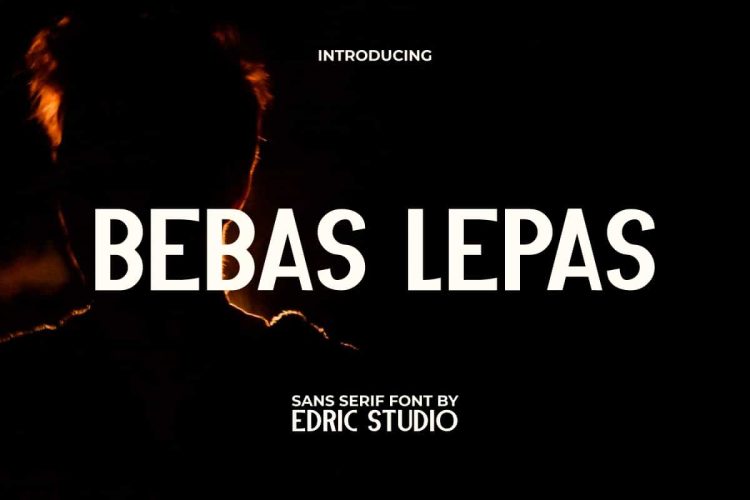
Bebas Lepas Font is a modern sans serif font with a versatile style. The style of this font may be shared by many fonts in general, but it will never get old and is still a favorite of many people. It will be suitable for any business, such as fashion, cafe, men’s product, entertainment, event organizer, sport, accessories, photography, food and beverage, printing, publishing, writer, and many more!
Bebas Lepas Font comes with full set of Uppercase and Lowercase Basic Characters, Number, a large range of Punctuation, and Symbol. It has cool characters set, perfectly managed with well spaced and kerning. Bebas Lepas Font will be able to complement for any design (with extended license) including: custom design, stationery, signage, label, poster, brand image, merchandise, cover, packaging design, quote, screen print, sticker, title, website, etc.